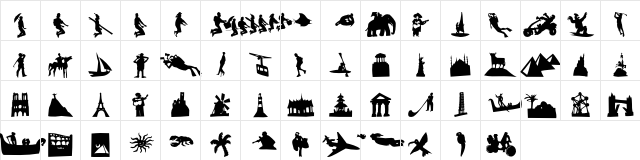
AIToursAndTravel Regular
Design Context for AIToursAndTravel Typeface
AIToursAndTravel is a composed and adaptable typeface that performs quietly and consistently across a wide range of design contexts.